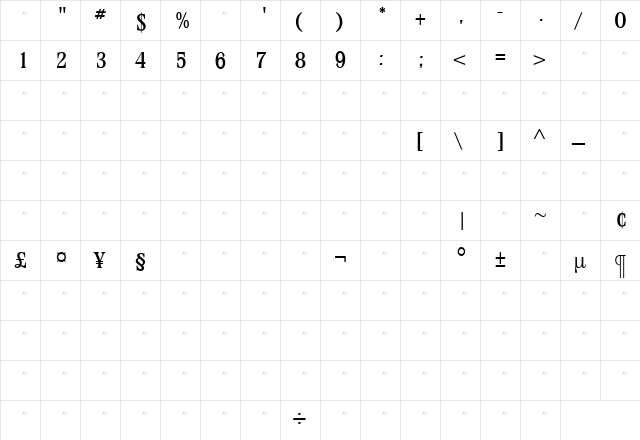
StirlingMediumTab Roman
StirlingMediumTab takes a measured approach to typography — its balanced proportions and neutral character make it a reliable workhorse for both digital and print work.